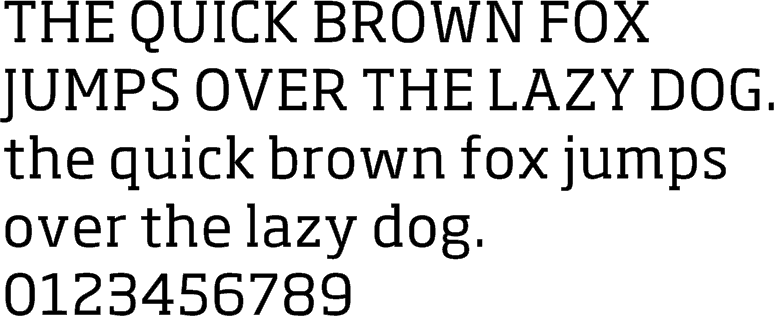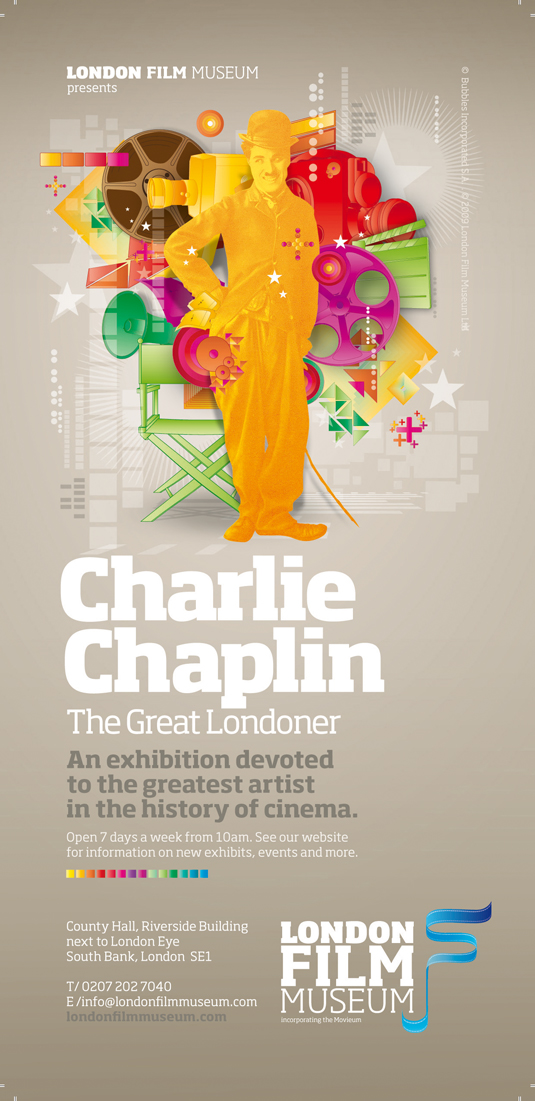
Greatest fonts countdown: 67 - Soho
67. Soho
- Seb Lester, 2007
With 40 fonts in total, featuring 32,668 characters and 24 OpenType features, ranging from the sublime Soho Thin to the rip-roaring Soho Ultra Condensed, Soho is an impressively massive slab face by Seb Lester. This gargantuan type system is suited for an array of projects – it’s a strong, commanding typeface with high masculine shoulders and clipped serifs. Conversely, its soft curves create a lively and welcoming typeface, saving it from becoming a cold and geometric slab-serif.